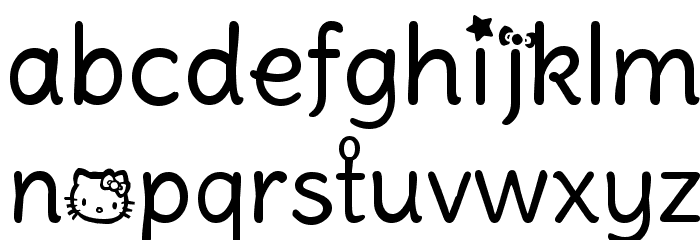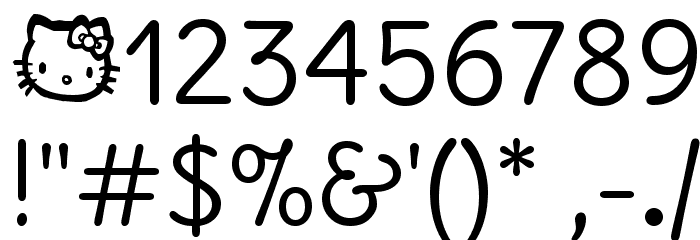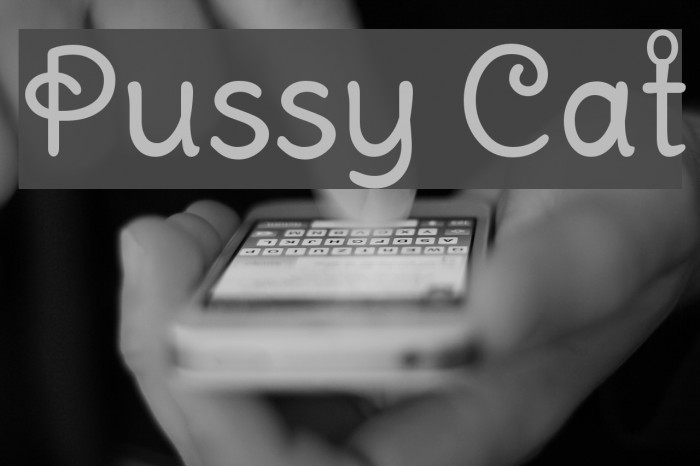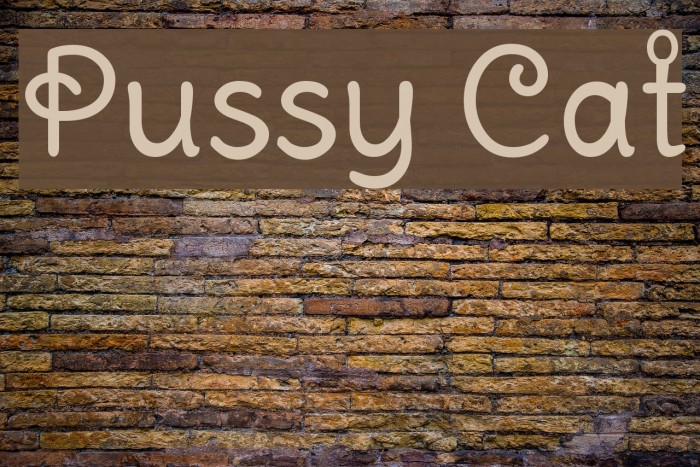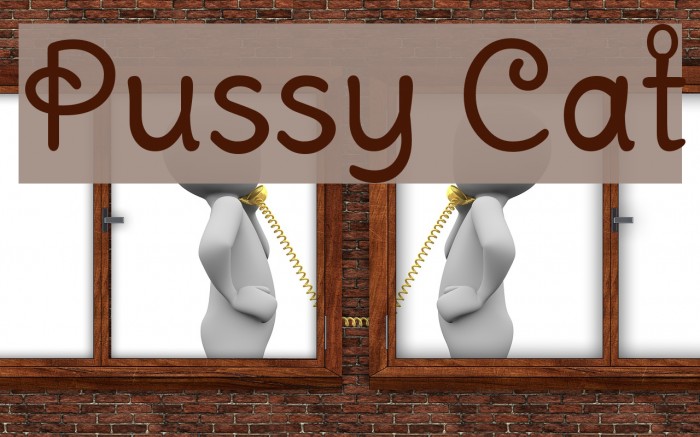
Pussy Cat Font
This playful and whimsical font features a unique blend of rounded and slightly curly letterforms, giving it a friendly and approachable appearance. The inclusion of a cute character motif within some letters adds a distinctive charm, making it particularly appealing for children's content or playful branding. The font maintains a consistent stroke width, contributing to its clean and legible design. Its decorative elements are balanced with simplicity, ensuring readability while adding a touch of fun. The numbers and special characters are designed to match the playful style, making the font versatile for various creative applications.
A playful, whimsical font with rounded, curly letterforms and cute character motifs.
- Proposed Projects: Ideal for children's books, playful branding, greeting cards, and toy packaging.
- Overall Style: Playful